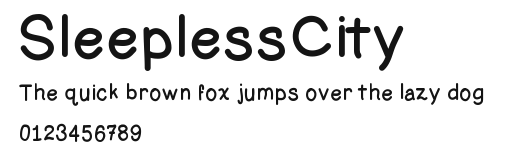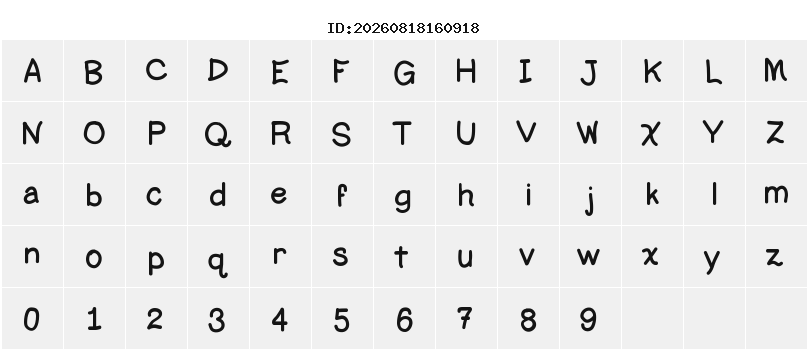
• Font Name: SleeplessCity
• Full Font Name: SleeplessCity
About SleeplessCity.ttf
SleeplessCity.ttf is a modern, elegant sans-serif font designed for ultimate readability and visual harmony. Perfect for branding, headlines, web design, and print materials.